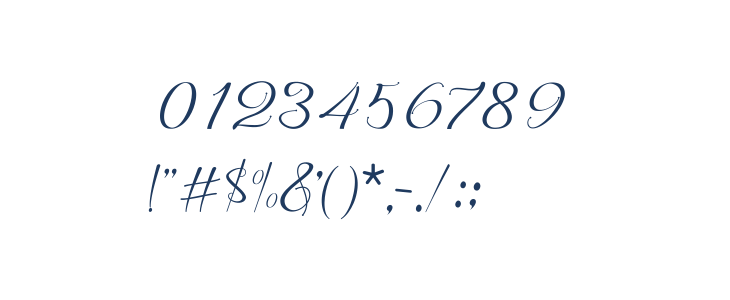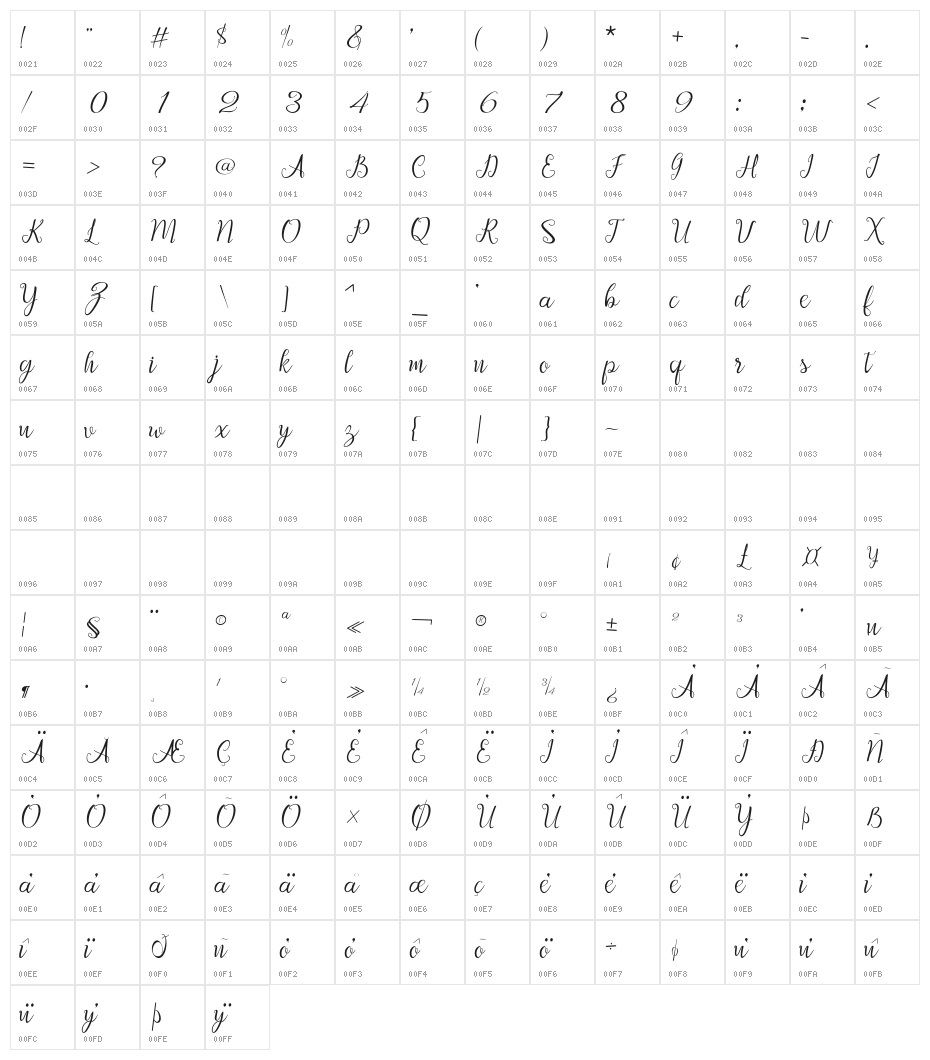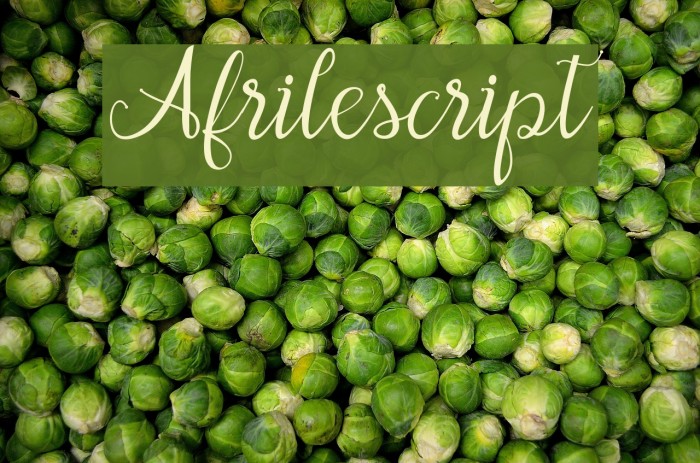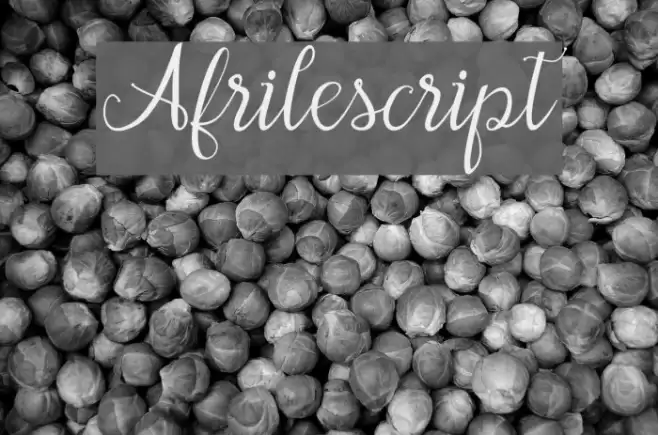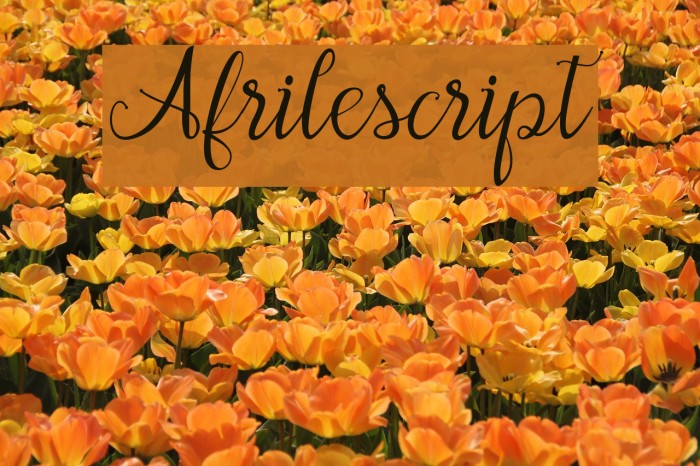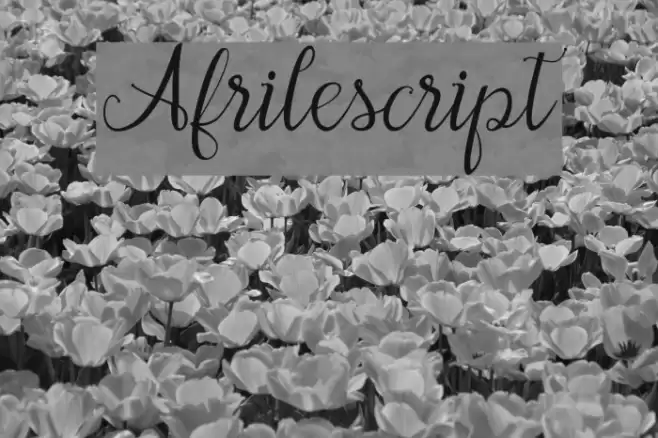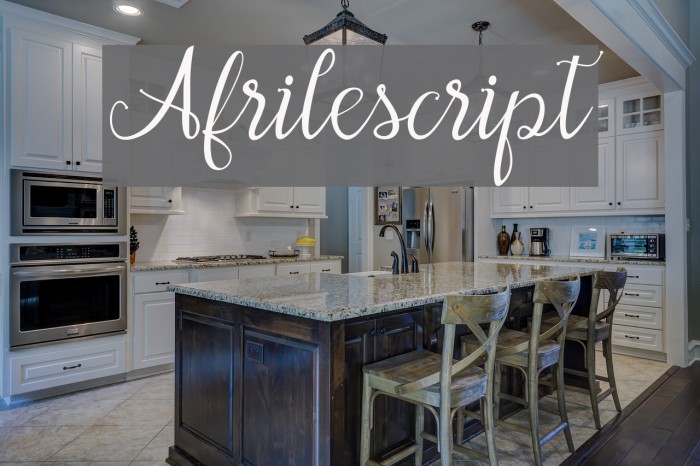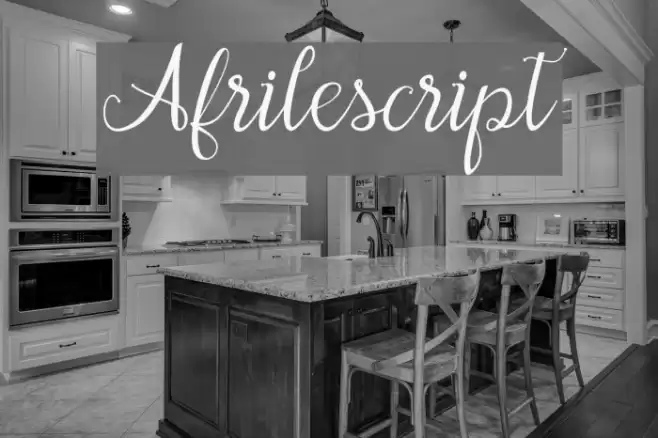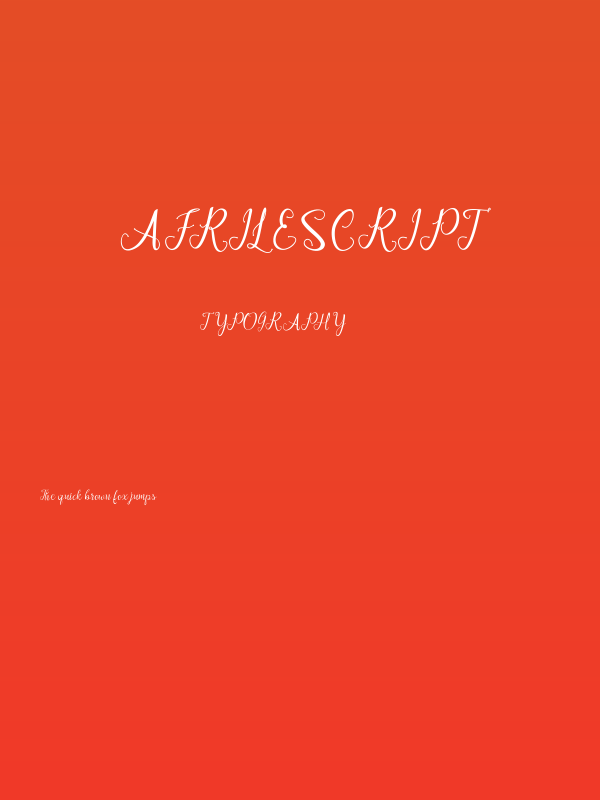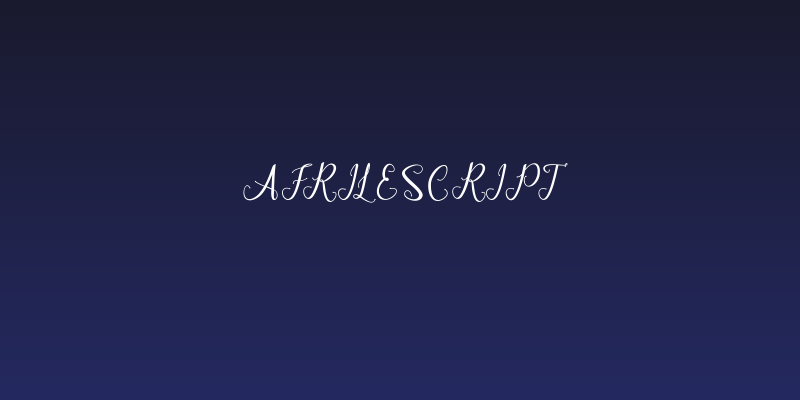
Afrilescript Font
Afrilescript Description
This elegant script font features flowing, cursive letters with a sophisticated flair. The uppercase letters are characterized by their graceful loops and swirls, giving them a sense of movement and fluidity. The lowercase letters maintain a consistent style, with delicate curves and a slightly slanted orientation that enhances the handwritten appearance. The numerals are stylishly crafted to match the overall aesthetic, while the special characters integrate seamlessly with the rest of the set. This font's intricate design makes it ideal for projects that require a touch of elegance and sophistication.
| Proposed Projects | Wedding invitations, elegant branding, greeting cards, and upscale packaging. |